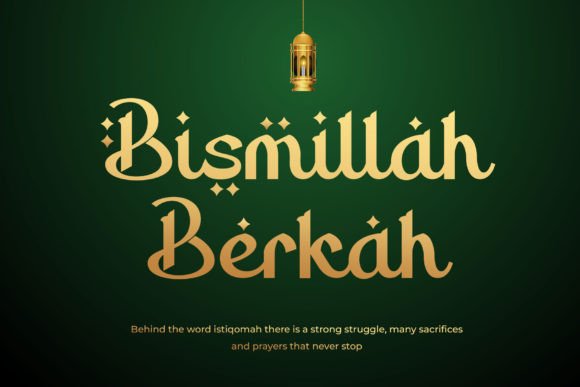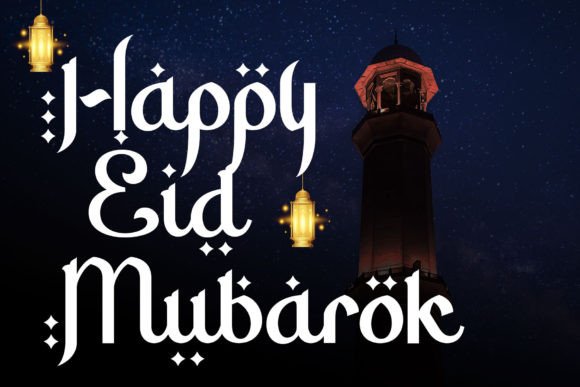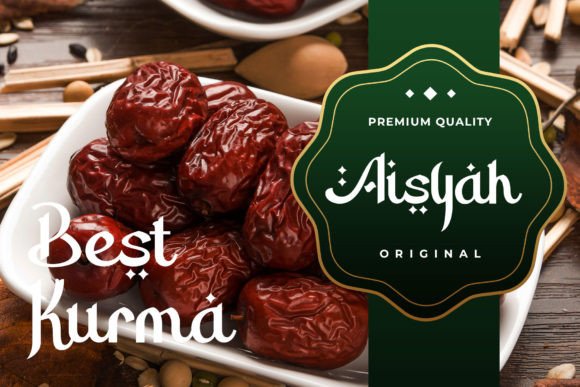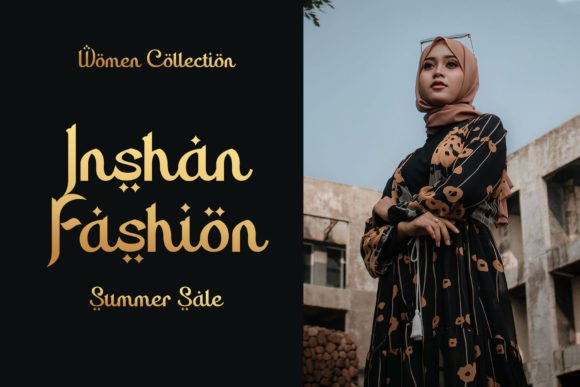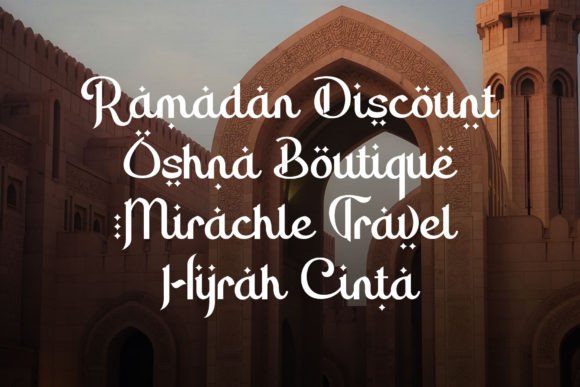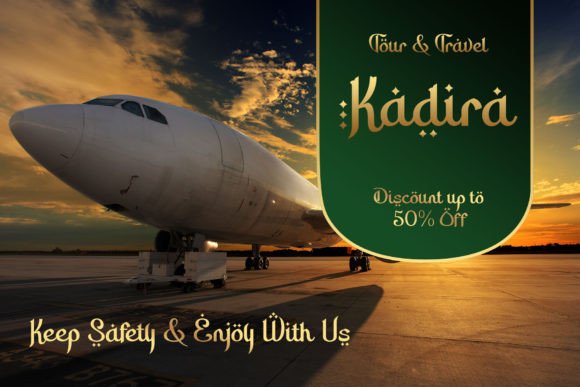
Introduction to Rahmuna Font
Rahmuna is inspired by Latin classic handwriting and Arabic letters, known as ‘hijaiyah.
’ Using this font infuses every text with an Arabic touch Rahmuna is elegant and luxurious, featuring sophisticated Arabic curves.
Key Features of Rahmuna Font